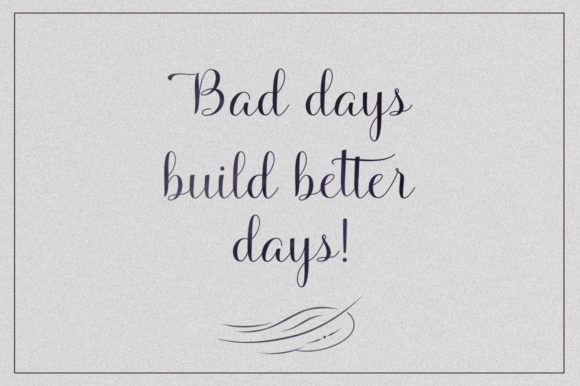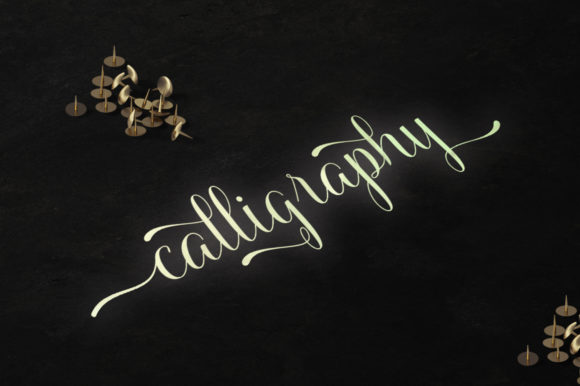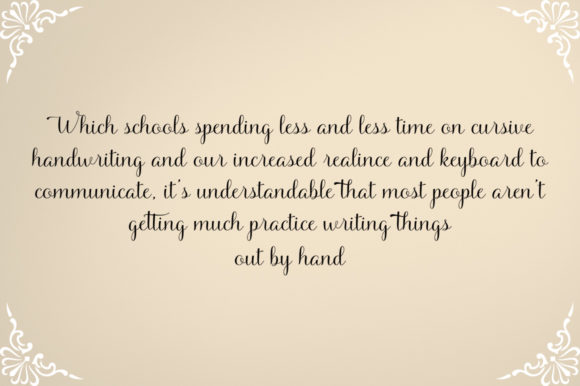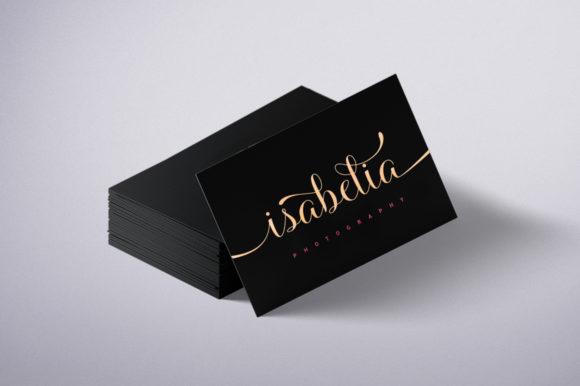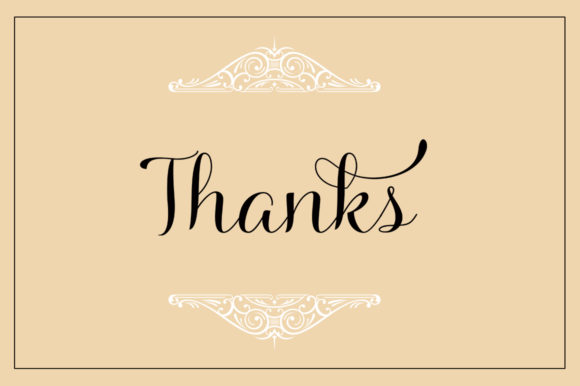
Madelis Script Font
About Madelis Script Font
The Madelis is a modern handwritten script. It’s easy to use and has a great readability. Perfect for branding designs!